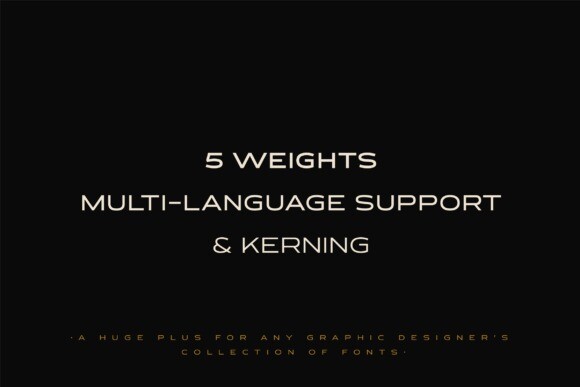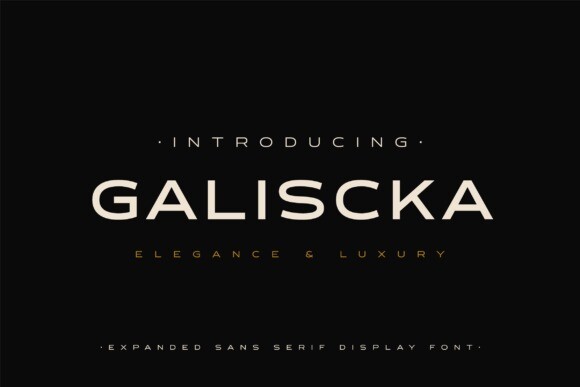
Galiscka Font
Designer: 29design
Galiscka Font is a new display font with an elegant expanded character design. Nowadays, Sans Serif  fonts are the most preferred option when it comes to graphic design/branding design and GALISCKA provides graphic designers with one of the most affordable options (while high quality) to give their designs a classy, elegant, and Aesthetic touch while staying away from serif fonts.